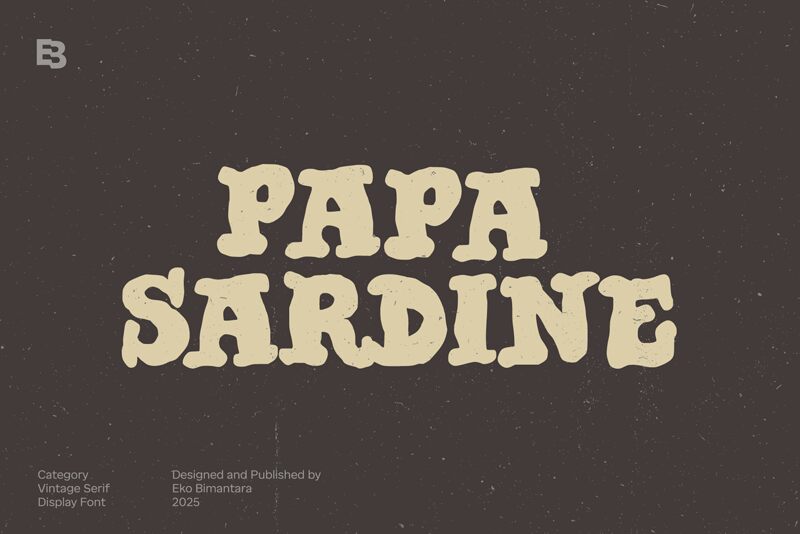
\nPapa Sardine font by Eko Bimantara is a bold display type with 1960s psychedelic influences. Its quirky presence, blob-like proportions, and retro vibes make the font quirky yet delightful. This is a free creative font with a prominent presence as a result of big contrasting black positive spaces with white negative ones.
Let your design projects grab all attention through your invitations, titles, posters, websites, social media posts and stories. Use it in logos, album covers, product labels, digital ads or on printed medium advertisements of all sorts.